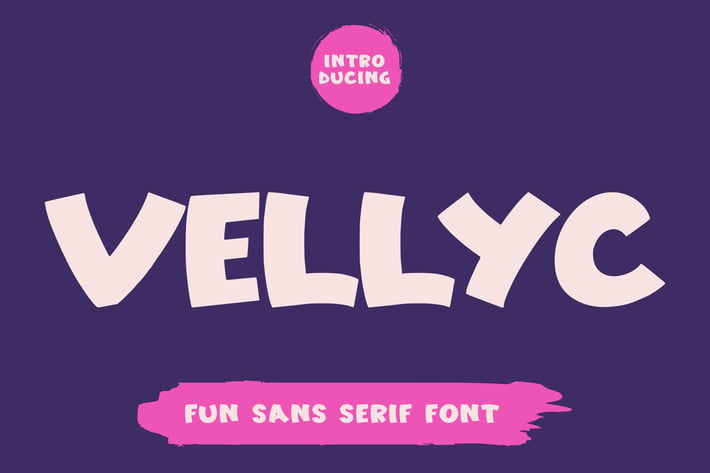
Vellyc - Fun Sans Serif Font
Vellyc - Fun Sans Serif Font that has a distinctive character that is very thick and elegant to use
Vellyc is a relaxed and flowing Handwritten Font. Incredibly versatile, this font fits a wide pool of designs, elevating them to the highest levels. Add this font to your favorite creative ideas and notice how it makes them come alive!